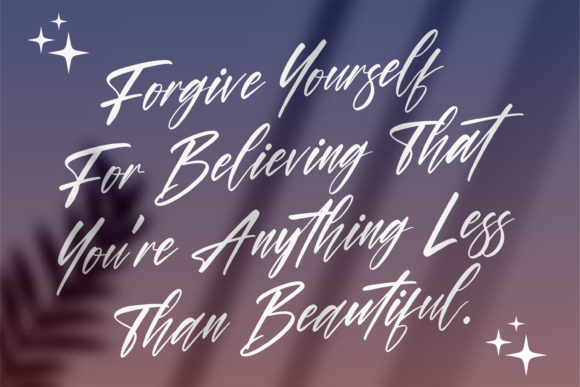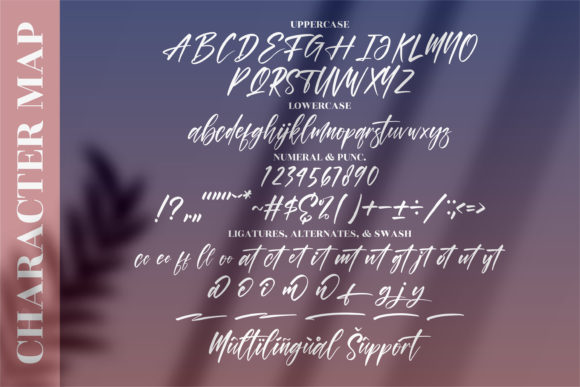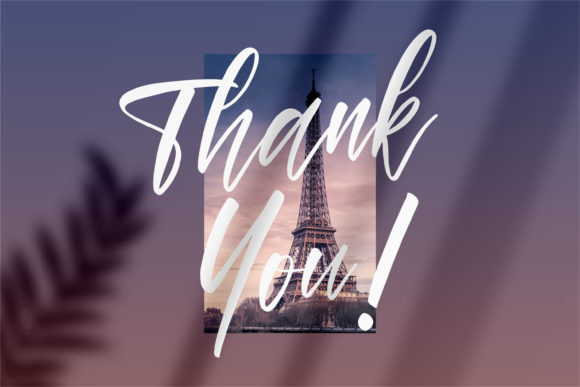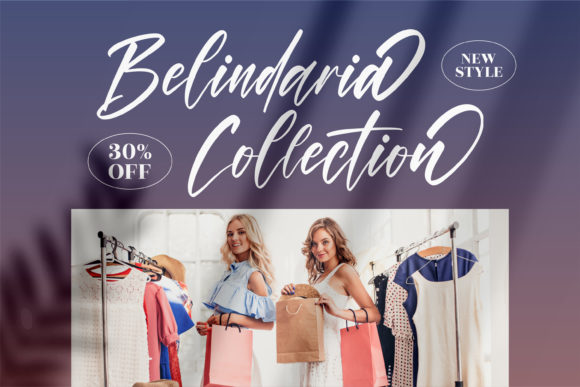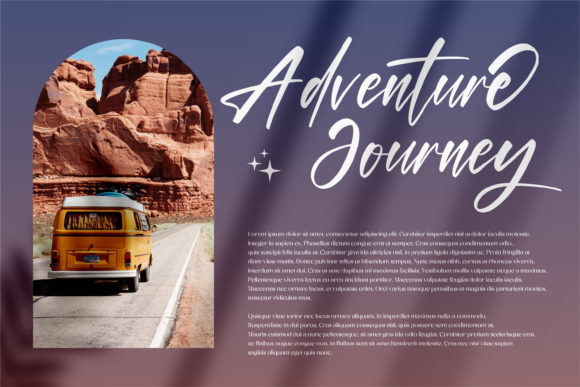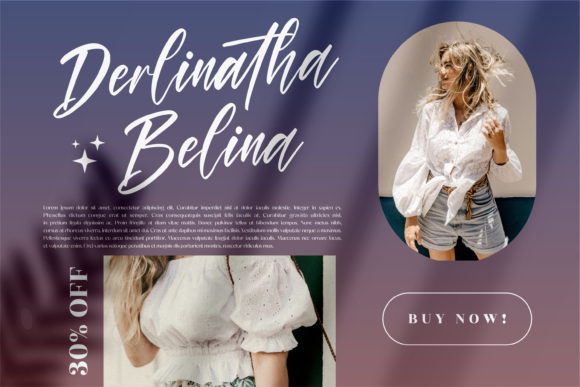
About Alisteria Font
Alisteria feels equally charming and elegant. It looks stunning on wedding invitations, thank you cards, quotes, greeting cards, logos, business cards and every other design which needs a customized touch.